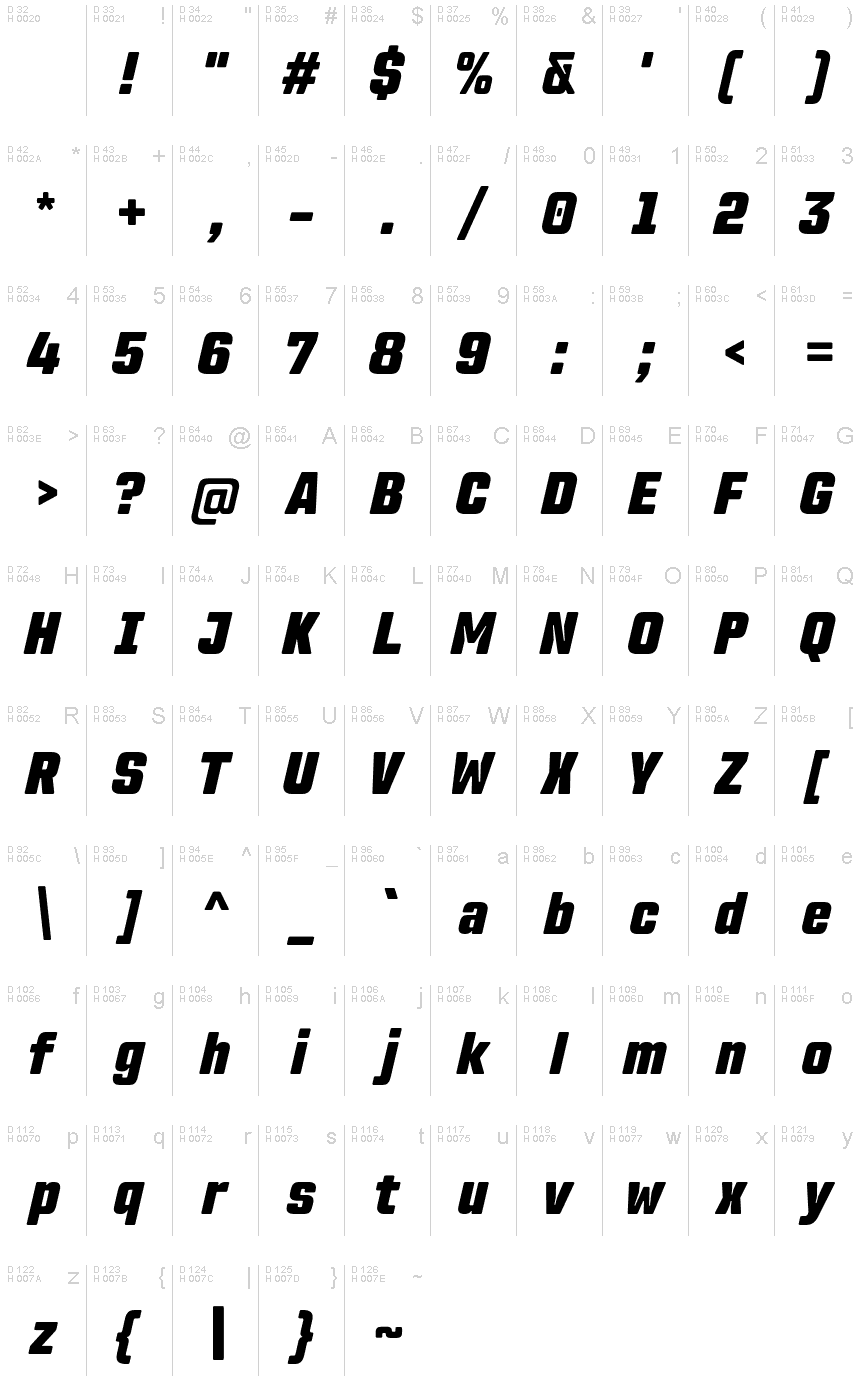
TT Lakes Neue Trl Cmd Blc It
TT Lakes Neue Cmd Blc It, the standout sans serif typeface designed by TypeType Foundry, is the perfect font for projects that demand a bold and modern aesthetic. With its extra-bold weight and condensed width, this font exudes confidence and professionalism in every letter. Whether you’re designing a sleek website or creating eye-catching marketing materials, TT Lakes Neue Cmd Blc It is sure to make your message stand out. Its clean lines and contemporary style make it a great choice for tech companies, fashion brands, and any project that requires a futuristic edge.